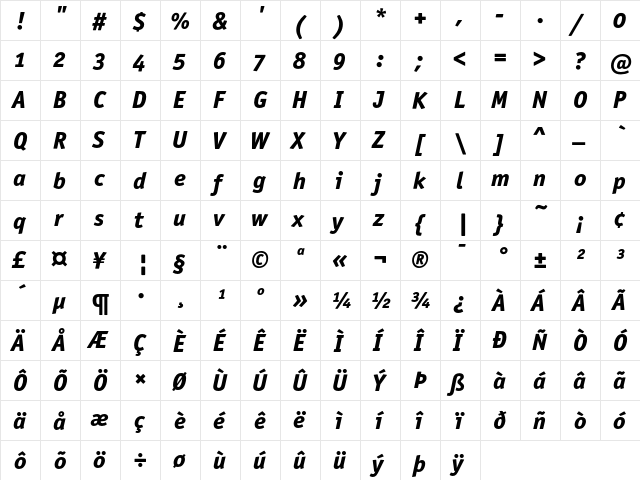
OfficinaSansITC ExtraBold Italic OS
Design Context for OfficinaSansITC Typeface
OfficinaSansITC is a composed and adaptable typeface that performs quietly and consistently across a wide range of design contexts. The slanted form adds forward momentum and visual energy. Its bold stroke weight gives it real presence on the page.
Pro Tip: Try OfficinaSansITC for annotation and caption copy alongside an upright companion — the contrast in angle creates a dynamic but ordered typographic system.